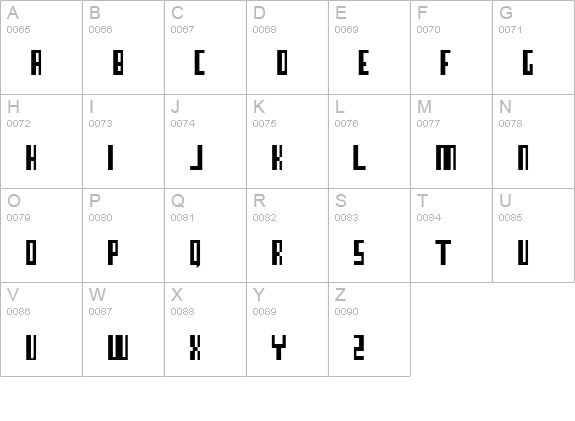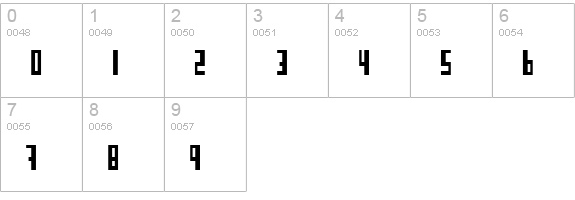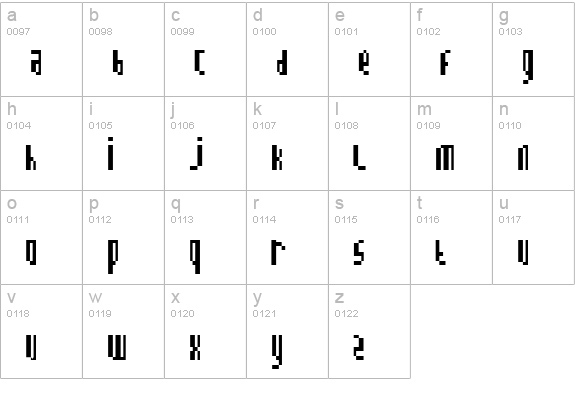
BN Information Font Details
The BN Information font is a sleek and modern typeface that exudes professionalism and clarity. With its clean lines and crisp design, this font is perfect for conveying information in a clear and concise manner. Whether you're creating a presentation, designing a website, or crafting a print layout, BN Information is a versatile choice that will elevate your content to the next level. Best of all, the BN Information font is available for free download at FontsMarket.com. You can easily access this stylish font and incorporate it into your projects without any cost. Don't miss out on the opportunity to enhance your designs with the BN Information font - download it today and see the impact it can make!